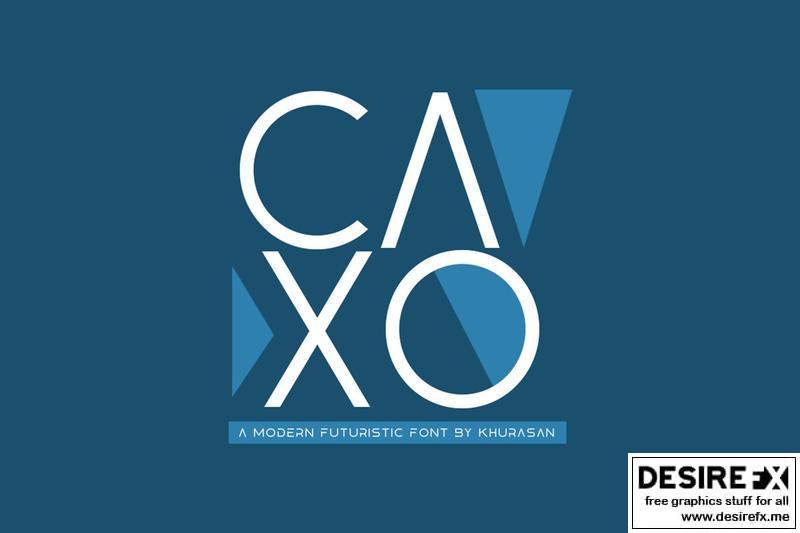
Introducing, Caxo font is a elegant sans serif typeface for your great project. Caxo font suitable for logo, branding, greeting card, poster and any design that you create.
Khurasan